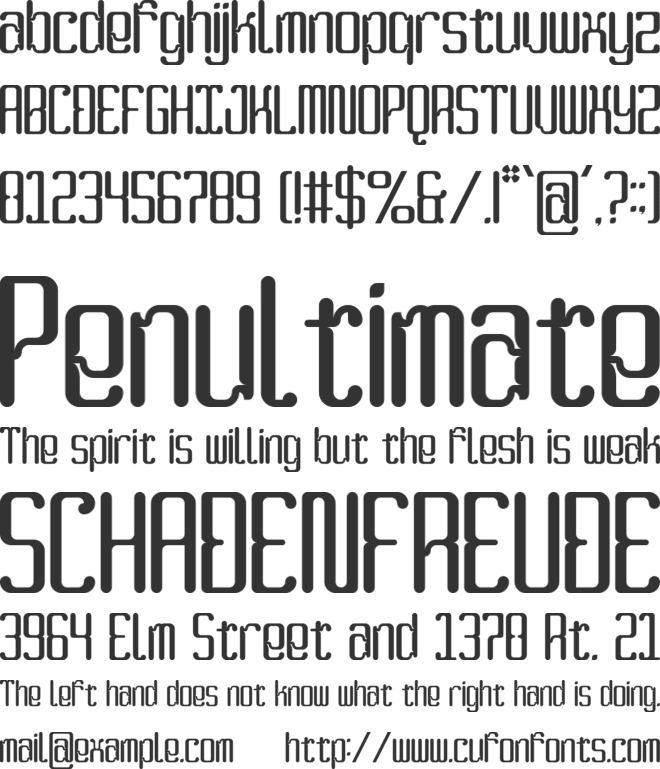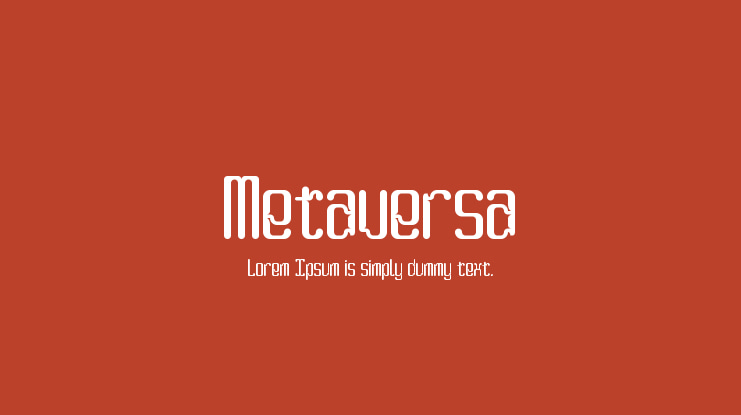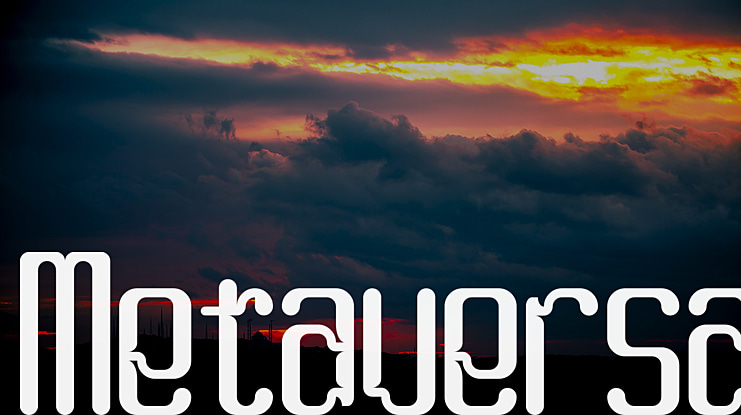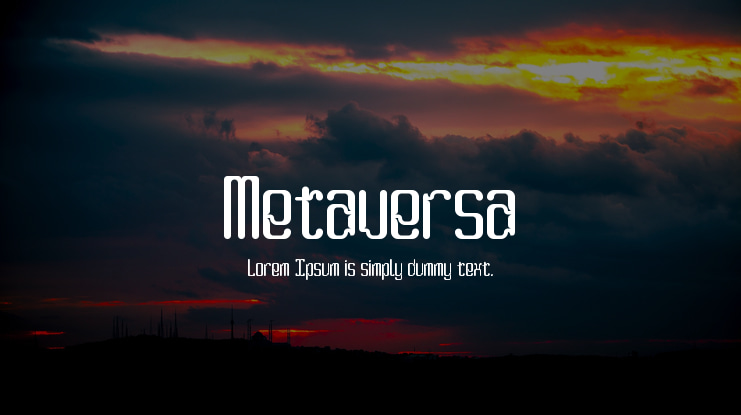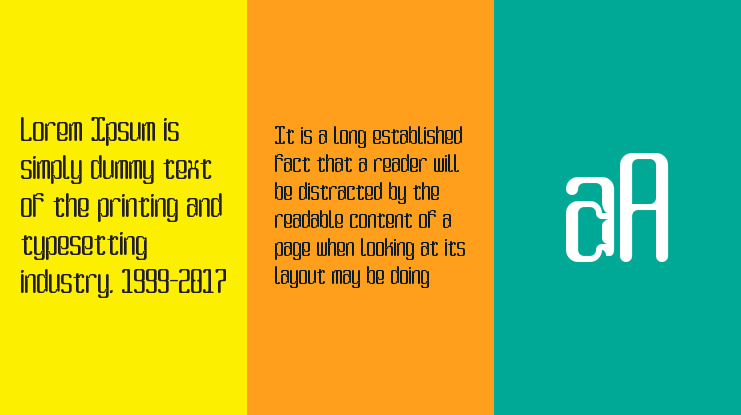
Metaversa Font
Experimental spurs and counters. Supports Dutch, English, and German!
RECENTLY UPDATED with German support. The design of "t" was also changed to make it more readable.